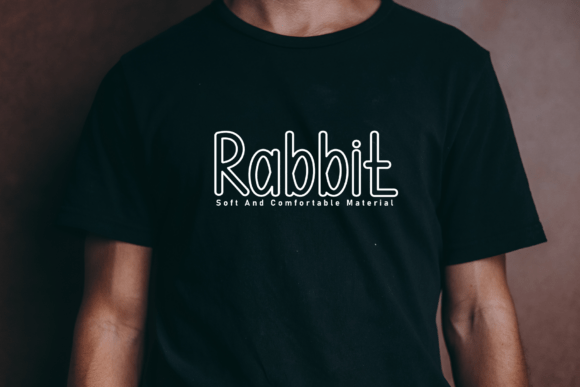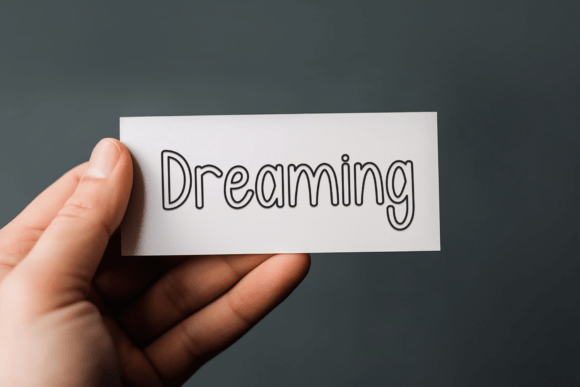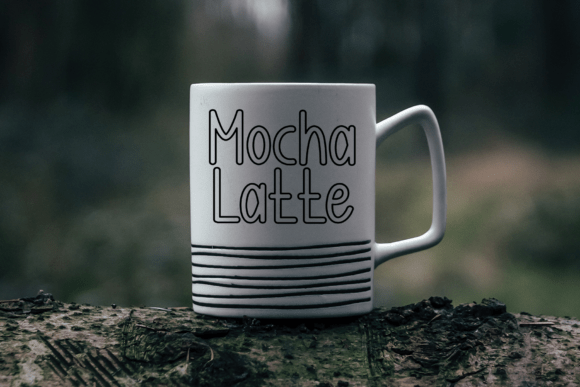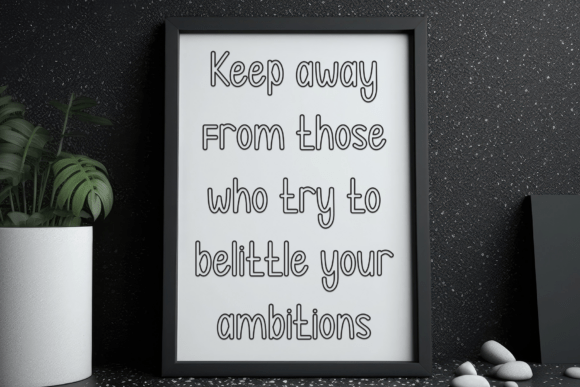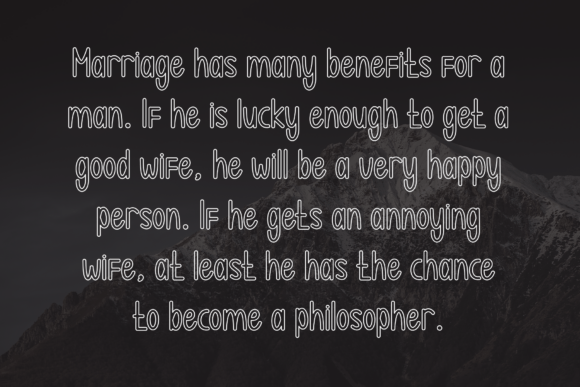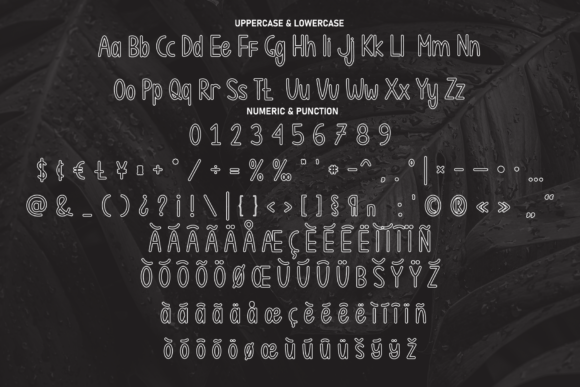
The Perfect Typography: Unveiling the Enchanting Charm of Black Font
As a designer, you’ve probably experienced that moment when a single font can elevate an entire project from ordinary to extraordinary. For me, it was the day I stumbled upon the captivating Black Font. Its infectious energy and welcoming warmth had me hooked from the very start. I knew right then and there that I had to learn more about this unique typeface.
Black Font is more than just a font – it’s a statement piece that adds a splash of color and life to any design. Whether it’s a wedding invitation, a heartfelt message, or a celebratory card, Black Font has the inherent capacity to turn each text snippet into an unforgettable masterpiece. For designers, Black Font is a valuable asset that promises to infuse artistic creations with a unique flair, setting them apart from the rest.
Key Features of Black Font
- Unique Character Set: Features a unique character set, including a wide range of punctuation marks, symbols, and ligatures, making it ideal for creative and editorial applications.
- Legibility: Designed for optimal legibility, with clear and distinct letterforms that are easy to read, even in small sizes.
- Customization: Offers advanced customization options, including font weight, style, and size, allowing users to tailor the font to their specific needs.
Black Font Review
Overall, I think the Black Font is a solid choice for a sans-serif typeface. It works well in various contexts, from body text to headlines ✨. The clean lines and minimal ornamentation make it easy to read and versatile enough to be used in a range of applications. I also appreciate the font’s ability to scale well, from small text to large display sizes.
Here are some specific things that I like about the Black Font:
- High legibility, making it suitable for both digital and print use
- Neutral and modern aesthetic that blends well with various design styles
- Suitable for use in logos, branding, and UI design
- ⚠️ Limited language support, which may be a concern for international projects
- ⚠️ May not be as expressive or emotive as other typefaces, which could be a drawback for certain design applications
- Use Black Font in different font sizes to create a sense of hierarchy and emphasis.
- Experiment with various font styles, such as bold, italic, and condensed, to add visual interest.
- Arrange Black Font in a creative way, such as a spiral or a grid, to add an element of mystery.
- Use a dark background color to make the Black Font stand out.
- Add some subtle lighting effects, such as glow or shadow, to create a sense of depth.
- Use other design elements, such as images or textures, to add context and meaning to the typography.
- Use Black Font in a bold and playful way, with a mix of uppercase and lowercase letters.
- Experiment with different font styles, such as script or handwriting, to add a personal touch.
- Arrange Black Font in a dynamic and energetic way, such as a splatter or a spray.
- Use a bright and colorful background to
What is Black Font, and how is it different from other font styles?
Black Font, also known as Black or Blackletter, is a type of font style that originated in the 12th century. It is characterized by its bold, condensed, and angular appearance. Unlike other font styles, Black Font has a unique, ornate feel, often used for decorative purposes, such as in titles, headings, and calligraphy.
How can I use Black Font effectively in my design projects?
To use Black Font effectively, consider using it sparingly in titles, headings, or as a decorative element. Pair Black Font with a clean, sans-serif font for body text to avoid visual clutter. Additionally, adjust the font size and spacing to ensure legibility and balance in your design. Experiment with different font weights and styles to achieve the desired visual effect.
Mysterious Black Font Typography
This project involves creating a dark and mysterious typography-based art piece. The focus is on showcasing the versatility of Black Font in various font sizes, styles, and arrangements.
To use Black Font in this project:
Combining Black Font with other design elements:
Black Font Graffiti Art
This project involves creating a graffiti-inspired art piece using Black Font. The focus is on showcasing the energetic and playful side of Black Font.
To use Black Font in this project:
Combining Black Font with other design elements: